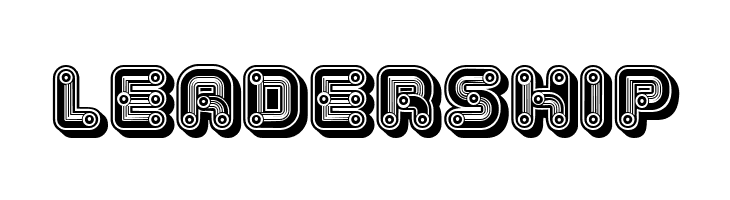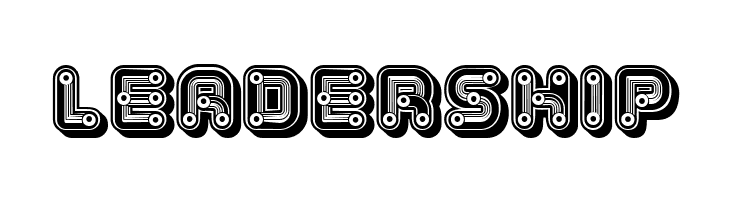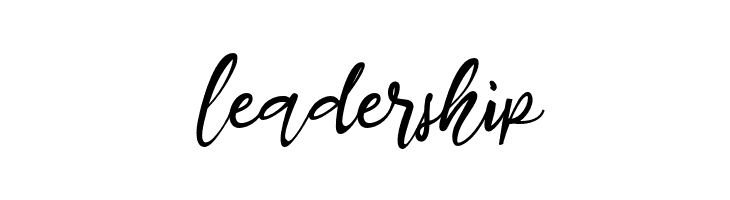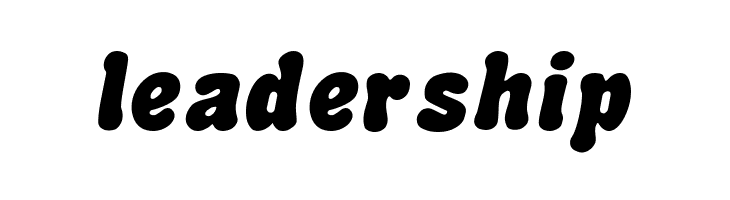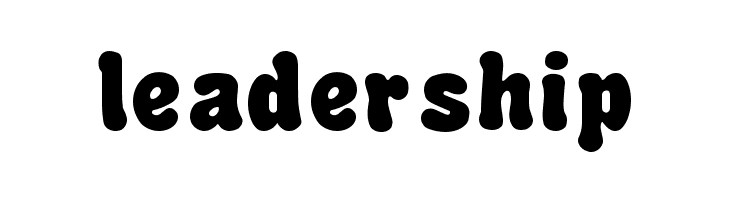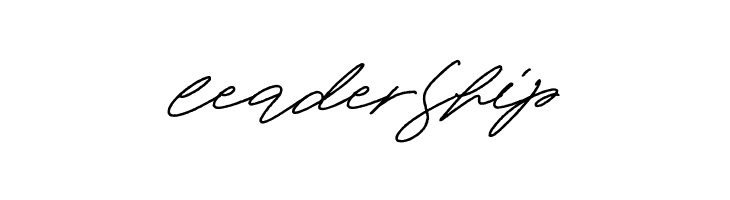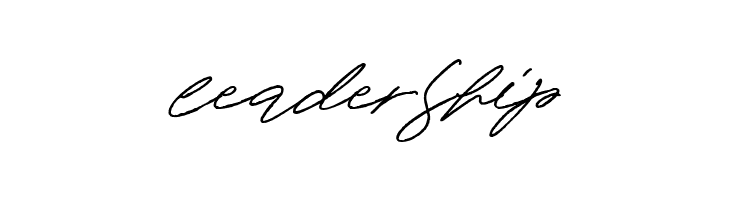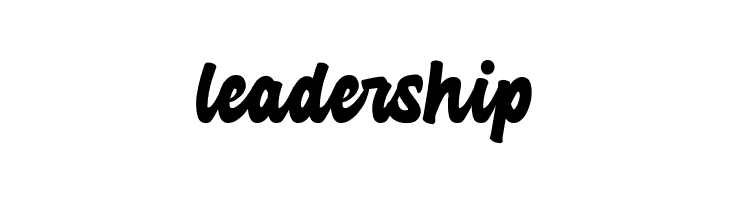
• Advera Script
A flowing, cursive script font with elegant, connected characters.
• Advert
A bold, expressive handwritten font with dynamic brush strokes and high contrast.
• Advert Italic
A bold, playful italic font with rounded, flowing forms and a vintage flair.
• Advert Regular
A bold, playful font with rounded, thick strokes and a whimsical style.
• Advertiser
• Advertising Gothic Demo
A bold, gothic-inspired font with sharp, angular edges and high contrast.
• Advertising Master DEMO
• Advertising Master LIGHT versio
A playful and dynamic font with bold, flowing characters and a whimsical style.
• Advertising Pulp
A bold, playful font with exaggerated curves and a whimsical style.
• advertisingphilfont
A playful, bold handwritten font with an informal and organic style.
• Advice Quotes
A bold, expressive script font with a lively, handwritten style.
• Advice Quotes
A bold, expressive script font with flowing, cursive letterforms.
• Advisor Filled Regular
A bold, decorative font with a futuristic, circuit-inspired design.
• Advisor Personal Use Regular
A sophisticated, elegant handwritten font with fluid, continuous strokes.
• Advisor Regular
A bold, decorative font with a futuristic, tech-inspired design.
• AdvisorPersonalUse-Regular
A graceful script font with fluid, cursive strokes and elegant connections.
• Advocate Script
A bold, flowing script font with elegant curves and connected strokes.
• Advocate Script